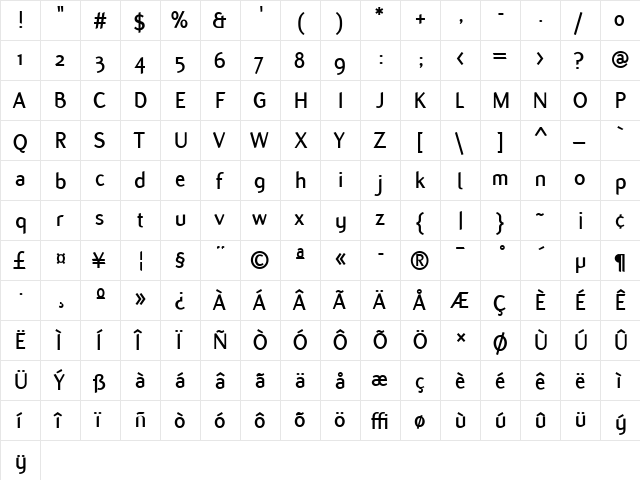
Flux Bold
| Foundry | Monib Mahdavi, MonibDesign |
Design Context for Flux Typeface
Flux is a composed and adaptable typeface that performs quietly and consistently across a wide range of design contexts. Its bold stroke weight gives it real presence on the page.